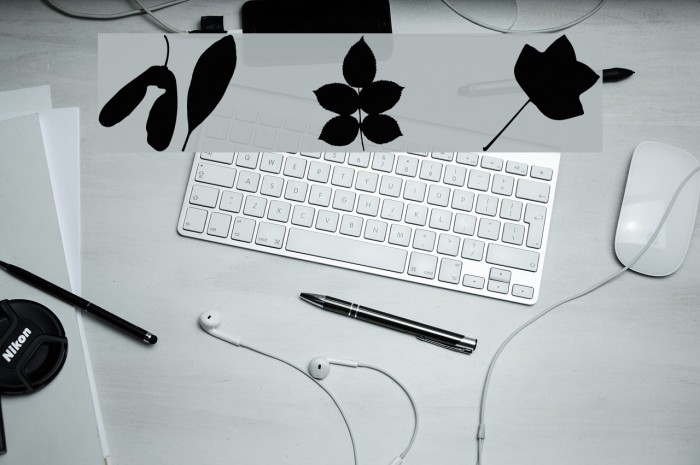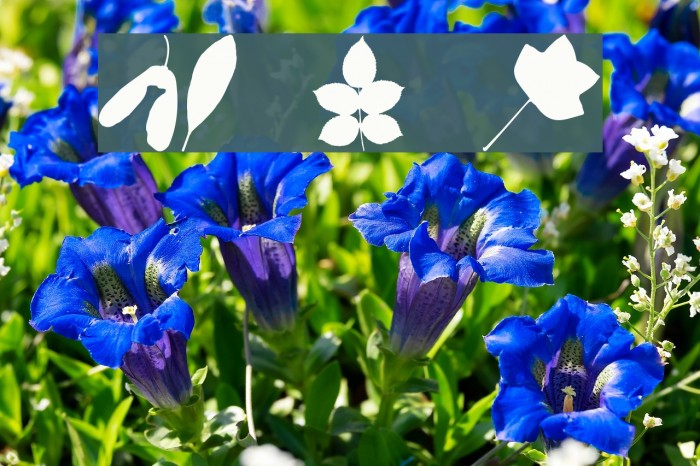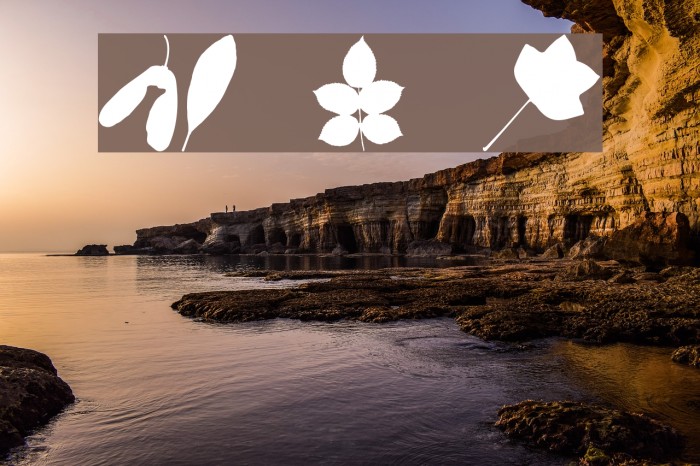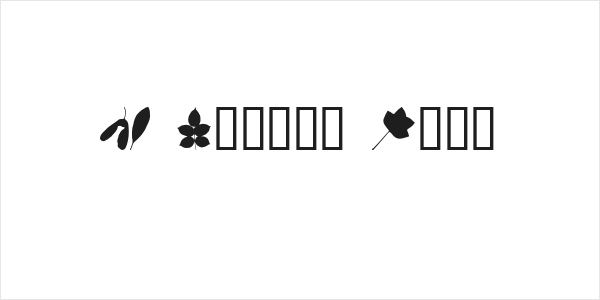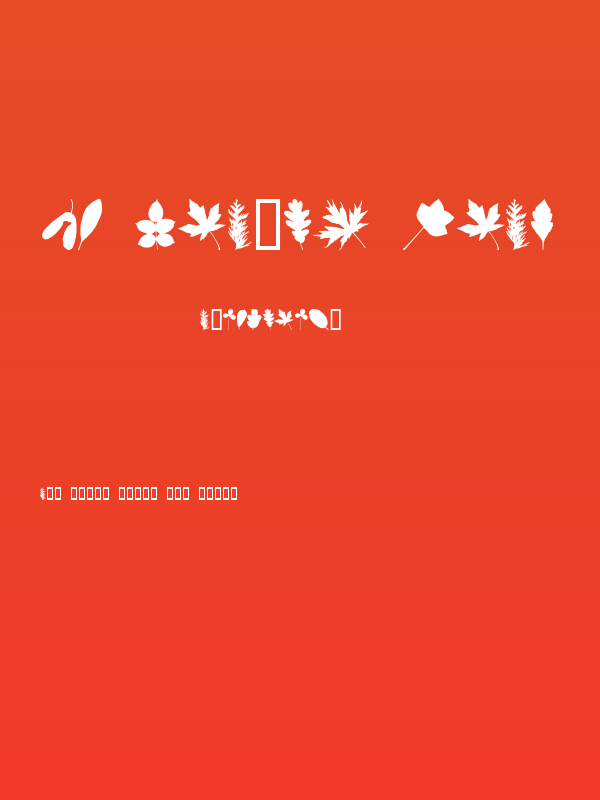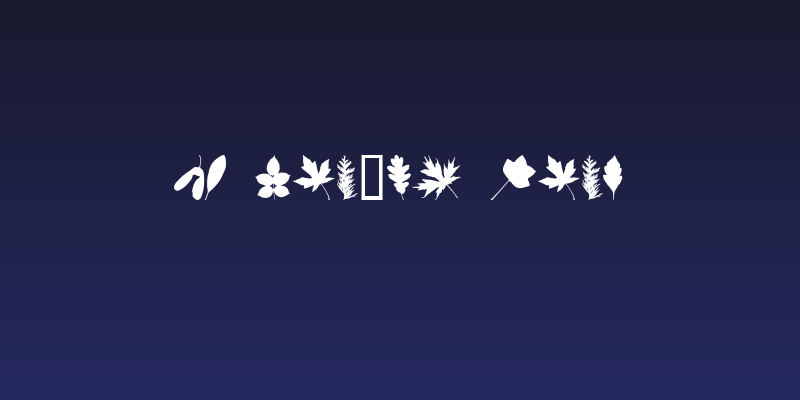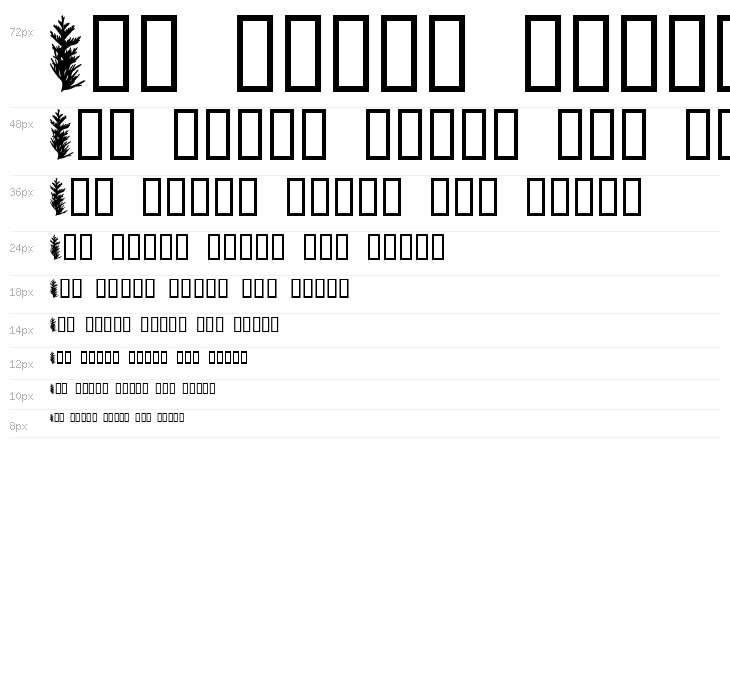
JI Nature Bats Font
JI Nature Bats Description
A decorative dingbat font featuring a variety of solid black leaf and botanical silhouettes, each glyph representing a different natural element such as leaves, seeds, and pinecones.
| Overall Style | Decorative, Nature-inspired |
| Use Case | Icons, Decorative elements, Themed graphics |
| Proposed Projects | Eco-friendly branding, nature-themed invitations, educational materials, scrapbooking, environmental posters. |